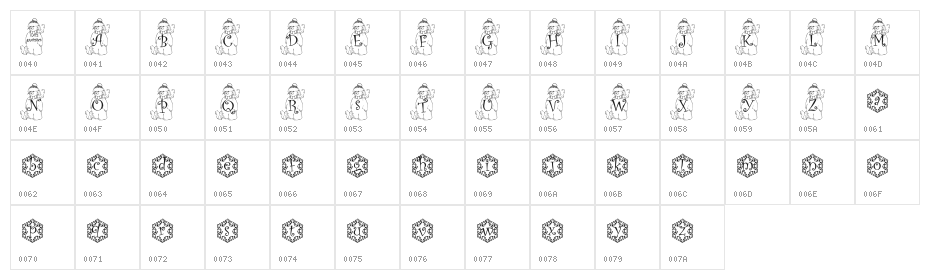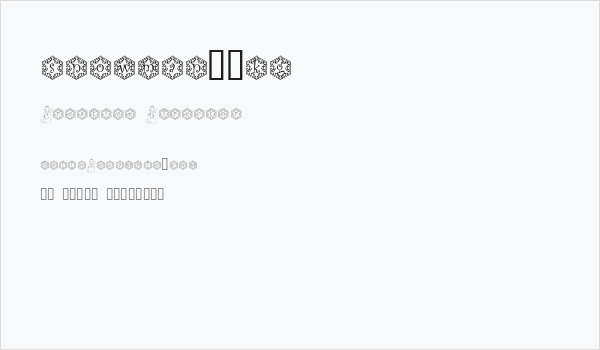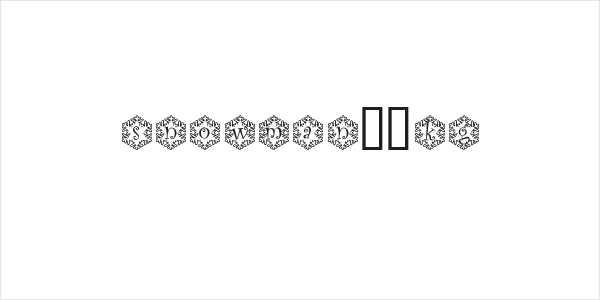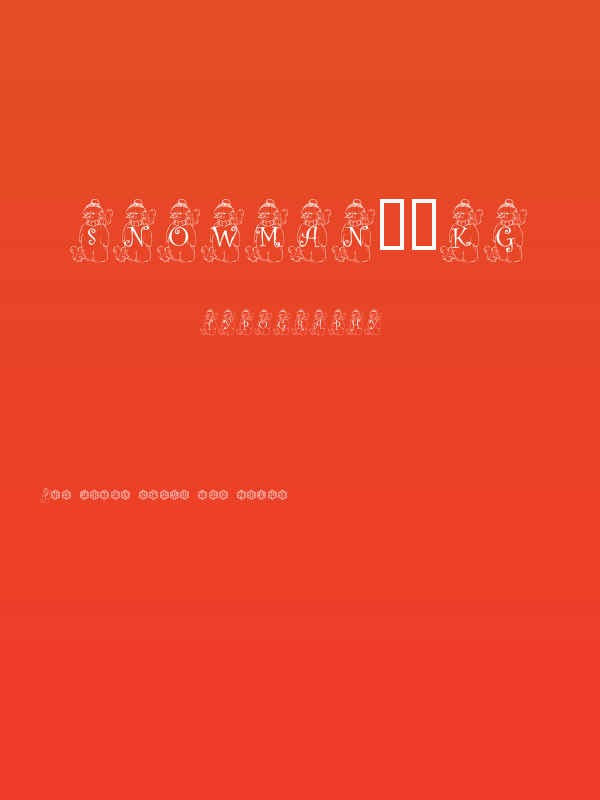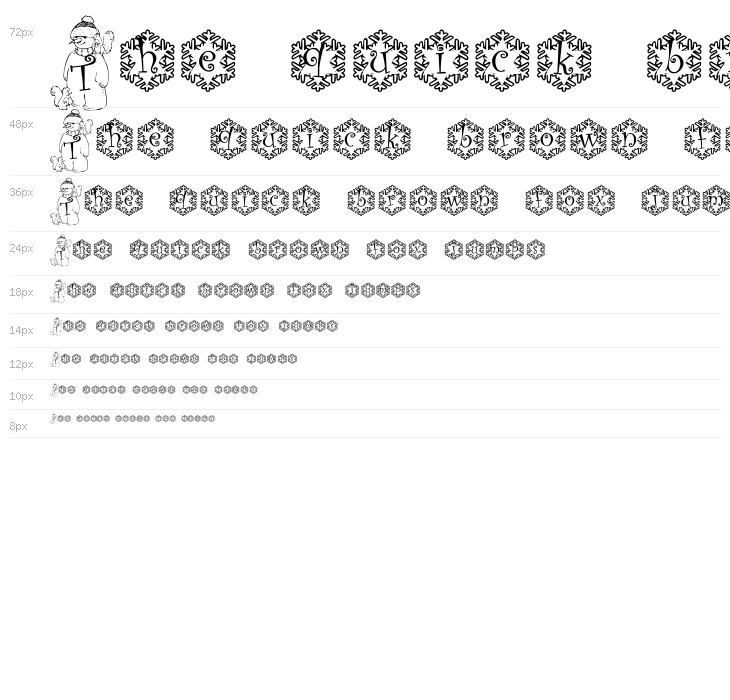
snowman1_kg Font
snowman1_kg Description
This playful and whimsical font features uppercase letters encased in charming snowman illustrations, adding a festive and joyful touch to any design. The lowercase letters are uniquely styled within intricate snowflake shapes, creating a delightful contrast between the two cases. The font's decorative nature makes it ideal for holiday-themed projects, offering a sense of fun and creativity. The characters are well-defined, with a medium contrast in stroke thickness, ensuring readability while maintaining their decorative appeal. The overall style is distinctly festive and decorative, perfect for capturing the spirit of winter and holiday celebrations.
| Overall Style | Festive, Decorative |
| Use Case | Headlines, Logos, Decorative text |
| Proposed Projects | Ideal for holiday cards, festive banners, winter-themed invitations, and playful branding. |